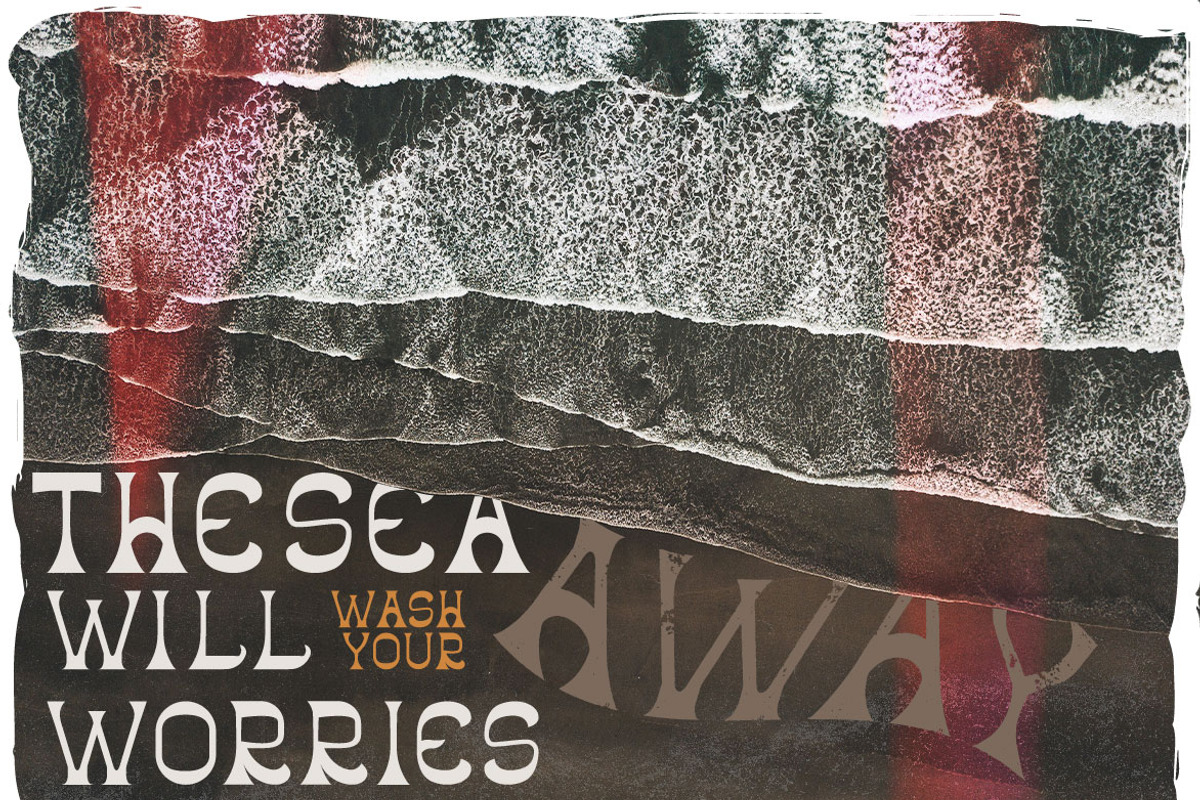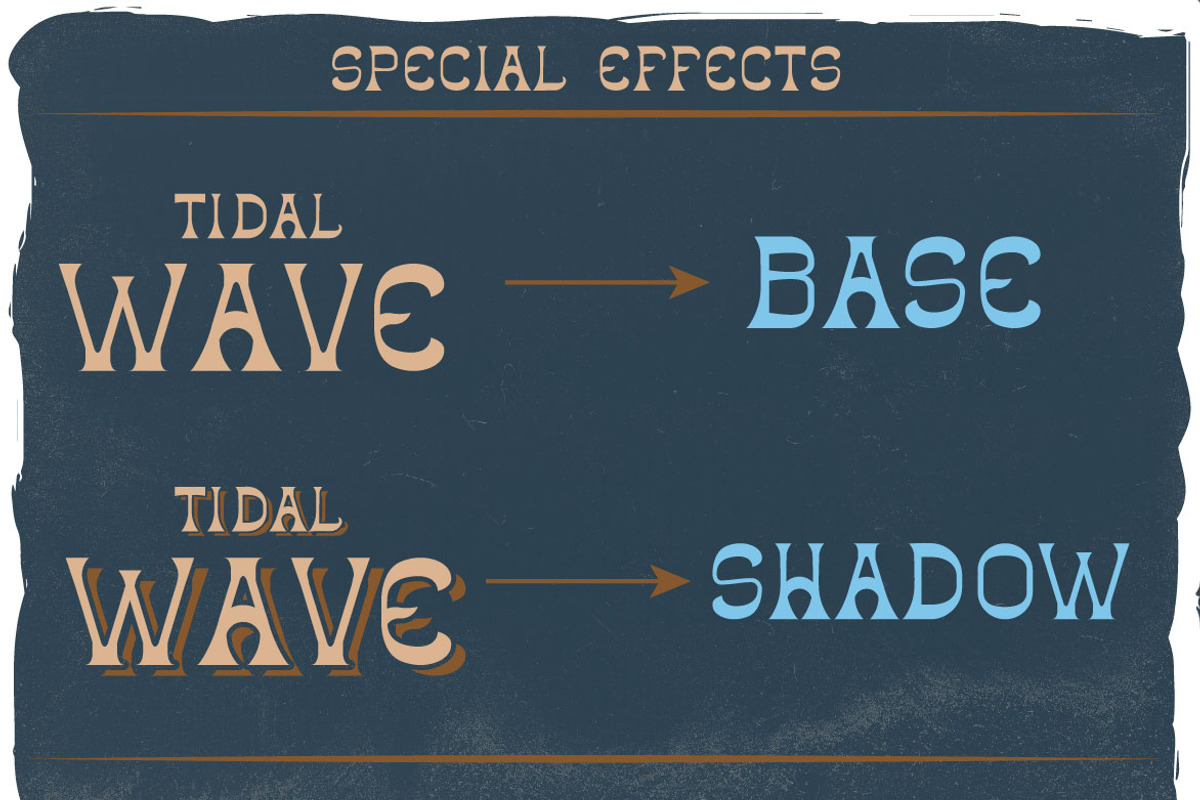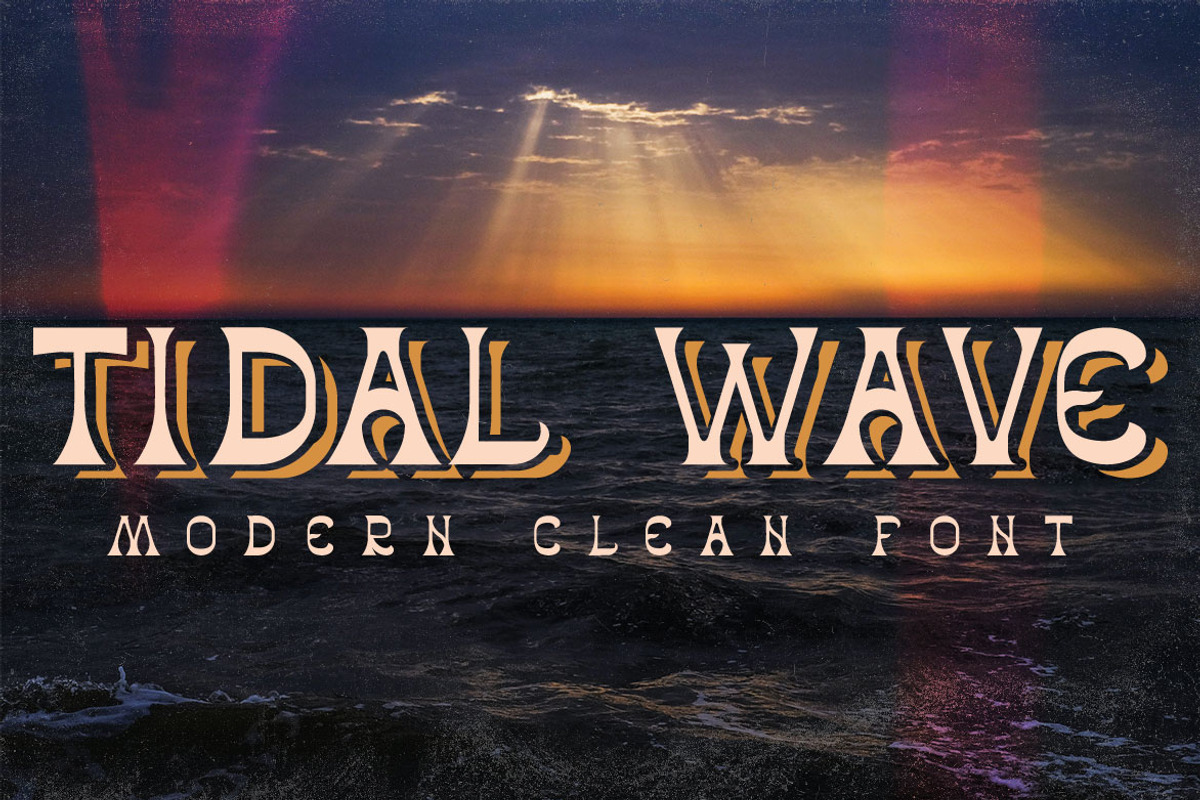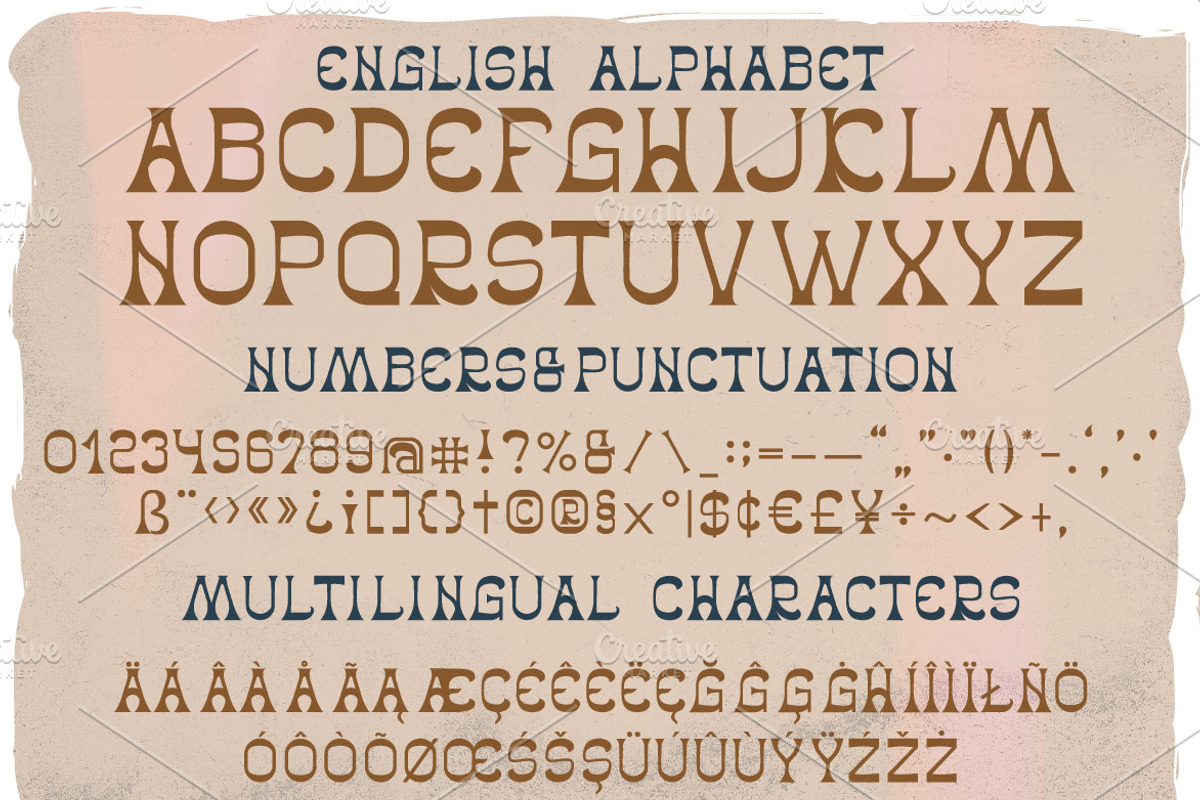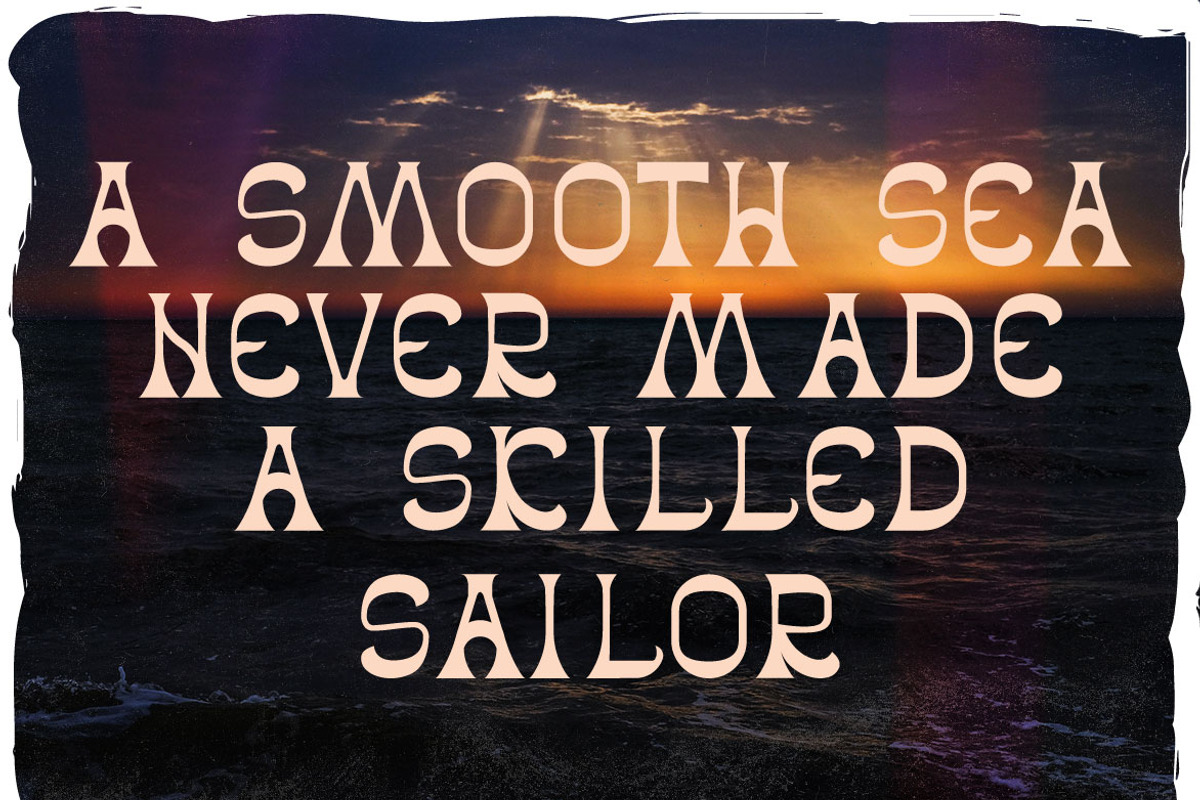
Tidal wave font
Introducing my newest font called "Tidal wave". It has wide language support of multilingual characters (check out all available characters in previews). It was inspired by nature and water. This font will look good on any vintage-styled designs like a poster, T-shirt, label, logo, etc.
- A lot of additional symbols, alternative characters, and multilingual support.